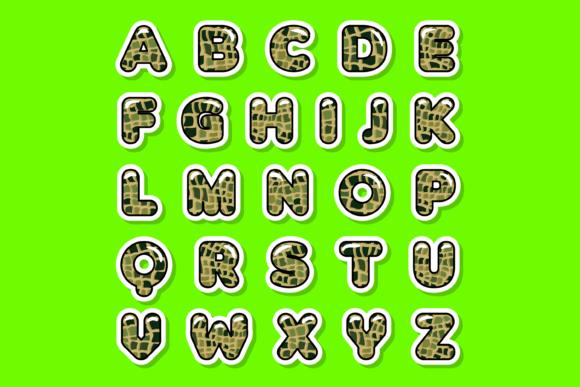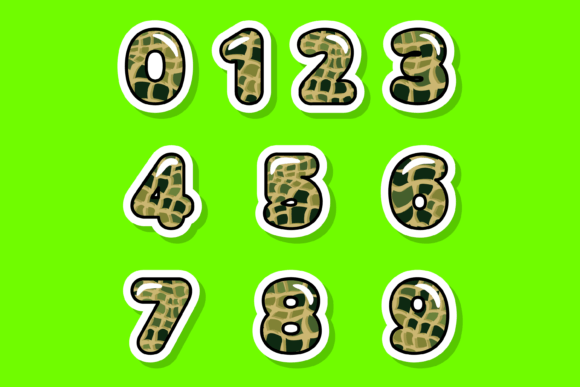
Introducing Alligator Font: Add a Scaly Touch to Your Designs
Are you looking for a unique and eye-catching font to elevate your designs, crafts, or DIY projects? Look no further than the Alligator Font, an incredibly cool color font designed with an alligator pattern. This versatile font is perfect for designers, crafters, and makers who want to add a touch of personality to their creations.
What is Alligator Font?
The Alligator Font is a specially designed color font that features an alligator pattern. This font is not your standard, run-of-the-mill font – it’s a Opentype-SVG file, which means it’s a color font that can be used in various design software. The font comes in OTF and TTF file formats, making it compatible with a range of popular design programs.
Perfect for Custom Designs and DIY Crafts
The Alligator Font is an excellent choice for anyone who loves custom designs and DIY crafts. Whether you’re creating personalized gifts, decorations, or cards, this font will add a unique and playful touch to your projects. Imagine using the Alligator Font to create:
• Custom vinyl decals for laptops, water bottles, or cars
• Personalized party invitations or decorations
• Unique gifts, such as monogrammed tote bags or customized phone cases
• DIY crafts, like handmade cards, scrapbook pages, or journal entries
Why Choose Alligator Font?
So, why should you choose the Alligator Font for your next project? Here are just a few reasons:
• Unique and eye-catching: The alligator pattern is sure to grab attention and add a fun touch to your designs.
• Versatile: The font can be used in various design software and is perfect for a range of projects, from custom designs to DIY crafts.
To get the most out of the Alligator Font, here are some tips and inspiration to keep in mind:
• Experiment with different colors and textures to make your designs pop.
• Use the font to create custom illustrations or graphics.
• Pair the Alligator Font with other fonts to create a unique and interesting contrast.
The Alligator Font is an amazing choice for designers, crafters, and makers who want to add a touch of personality to their creations. With its unique alligator pattern and compatibility with popular design software, this font is sure to inspire and elevate your designs. So why wait? Download the Alligator Font today and start creating something scaly and amazing!